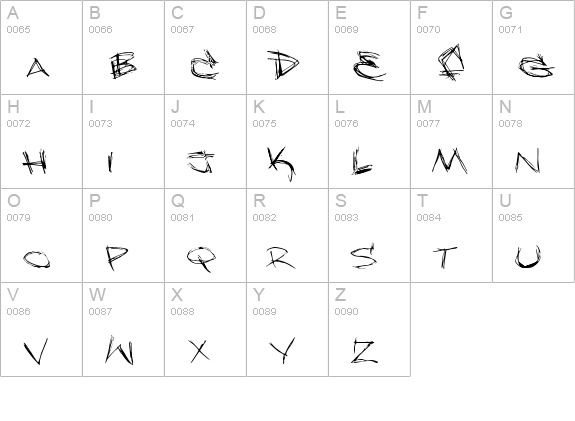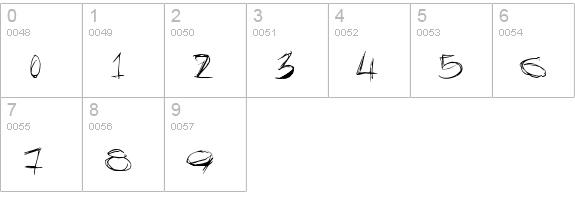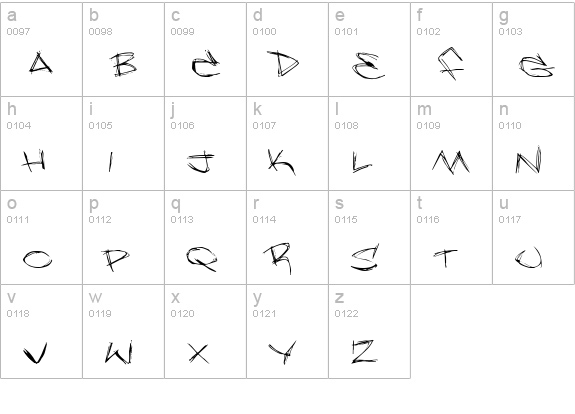
Introducing Slammer tag font, a bold and dynamic typeface that exudes urban flair and street style. With its striking letters and energetic design, Slammer tag font is the perfect choice for projects that require a strong and impactful visual presence. Whether you're creating posters, logos, or branding materials, this font will make your designs stand out from the crowd. Best of all, Slammer tag font is completely free to download at FontsMarket.com, making it accessible to designers of all skill levels. So why wait? Add a touch of urban edge to your projects with Slammer tag font today!